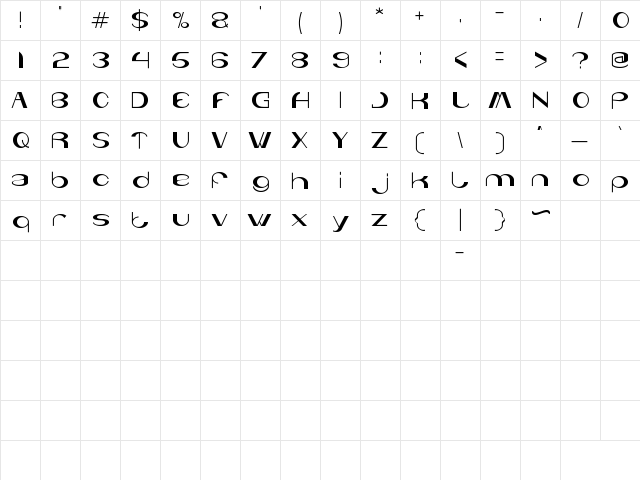
You & Me & Everyone Else Regular
Design Context for You & Me & Everyone Else Typeface
You & Me & Everyone Else is a composed and adaptable typeface that performs quietly and consistently across a wide range of design contexts.
Pro Tip: Use You & Me & Everyone Else in both headline and body roles to test its range before committing to a single application.